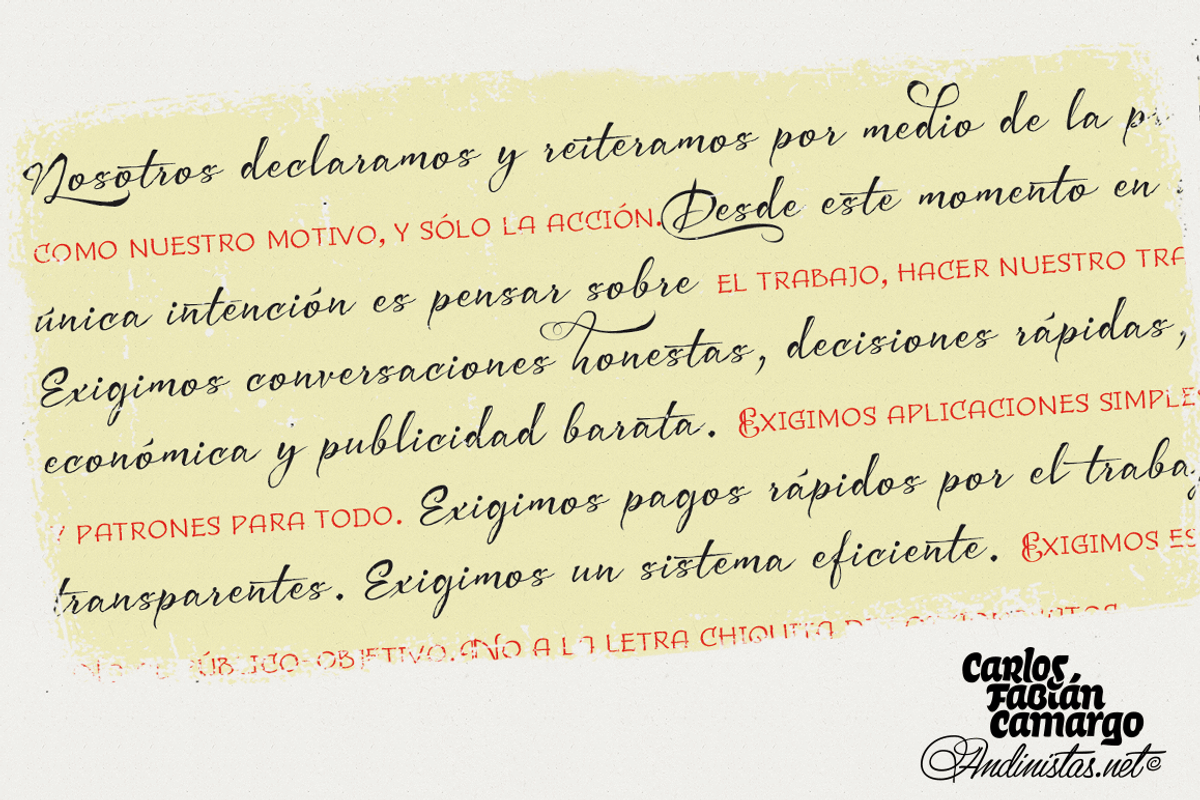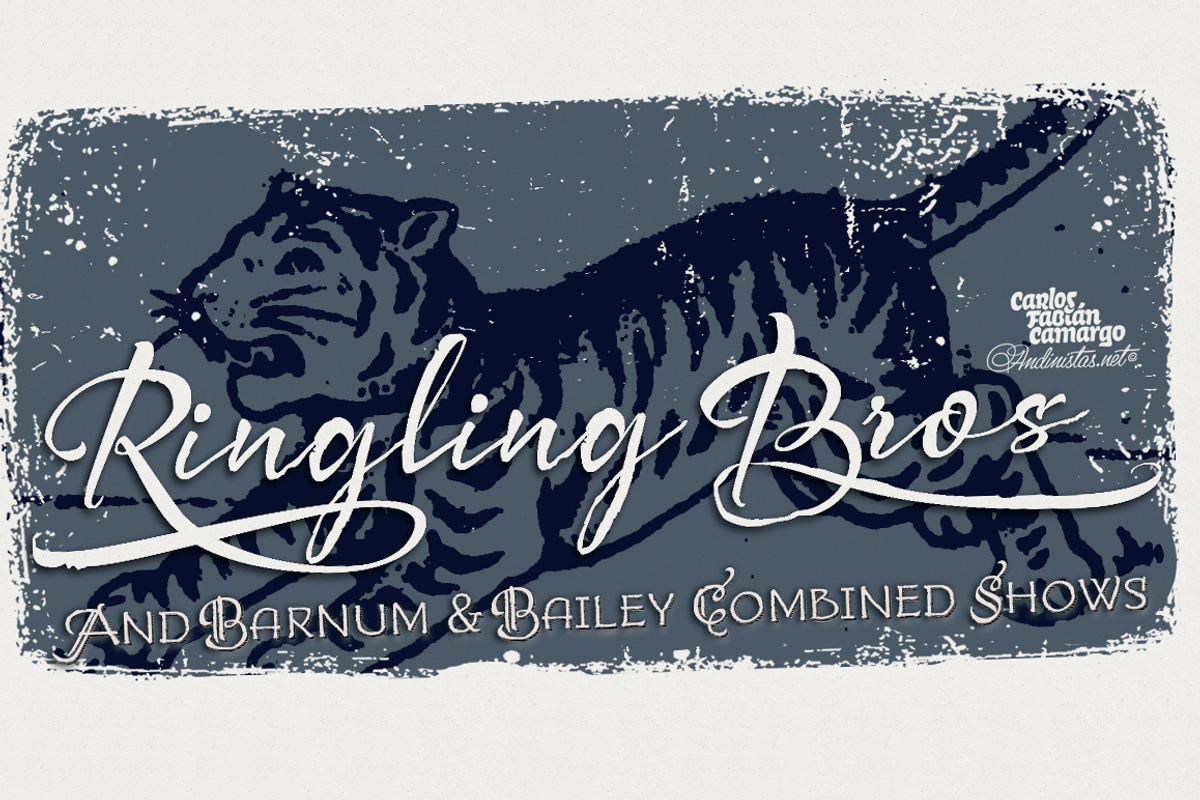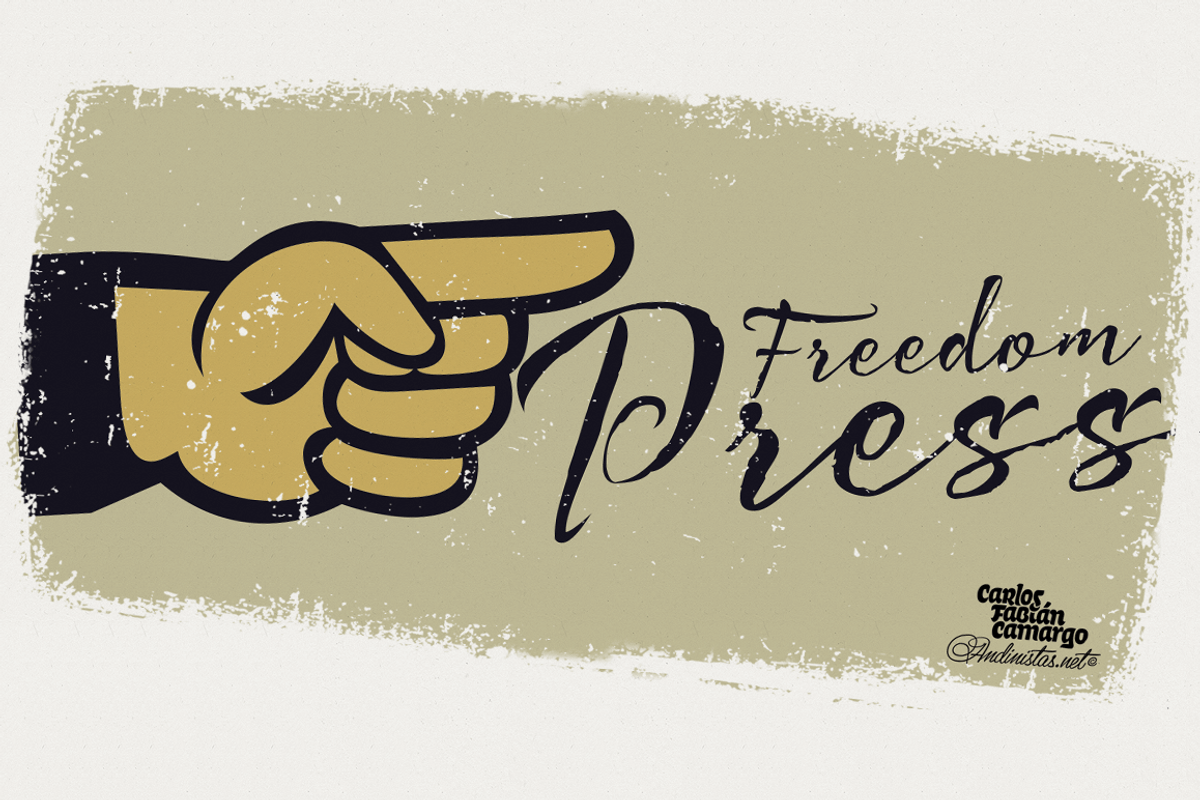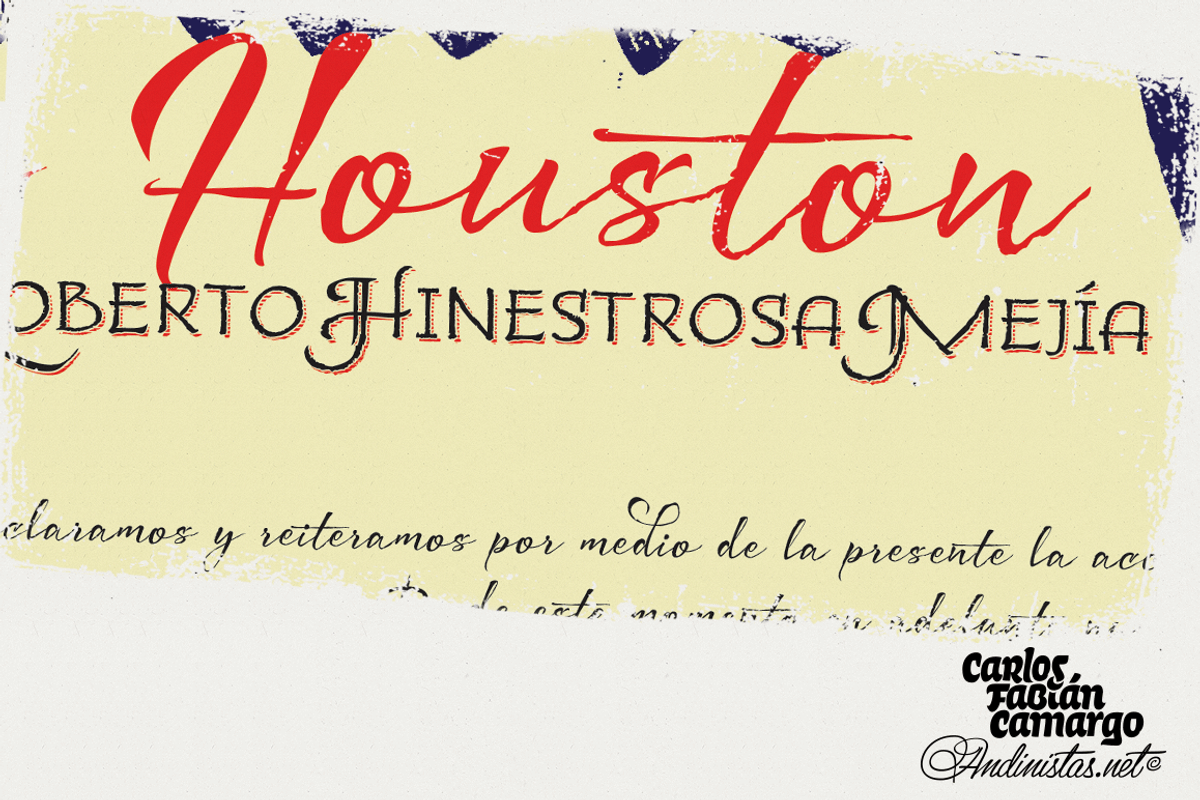
Bemol Type Family / 8 fonts
Bemol Type Family / 8 fonts by Andinistas Fonts is a font selected for branding, posters, packaging, typography.
- Bemol OpenType Script has features that amplify your handmade irregularity in more than 1300 characters.
- Bemol Caps
- Bemol CapsMix
- Bemol CapsMix2
- Bemol CapsShadow
- Bemol CapsShadow2
- Bemol Dingbats
- Bemol Script
- Bemol CatchWords
Bemol Type Family / 8 fonts by Andinistas Fonts fits naturally into Branding, posters, packaging, typography.